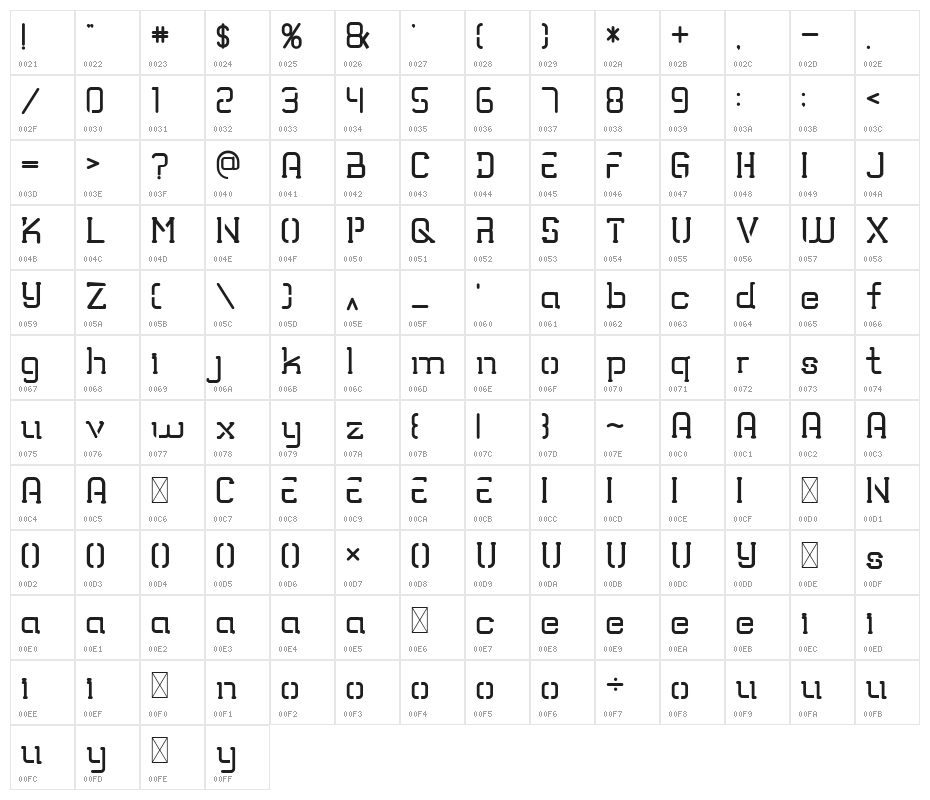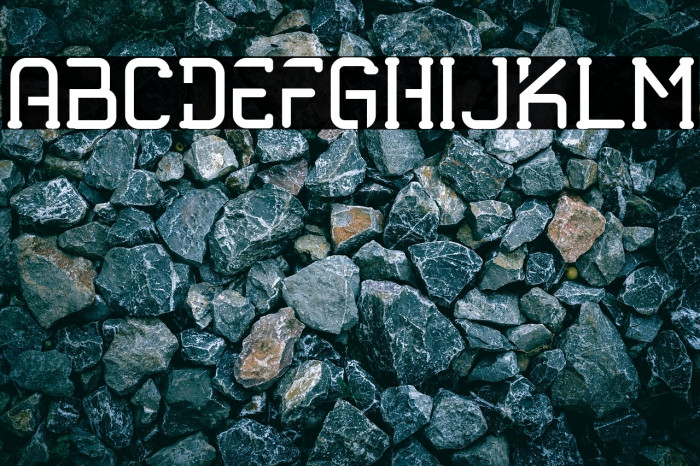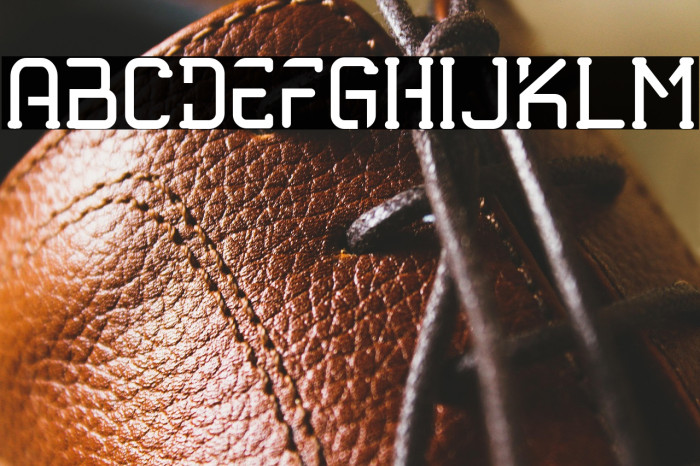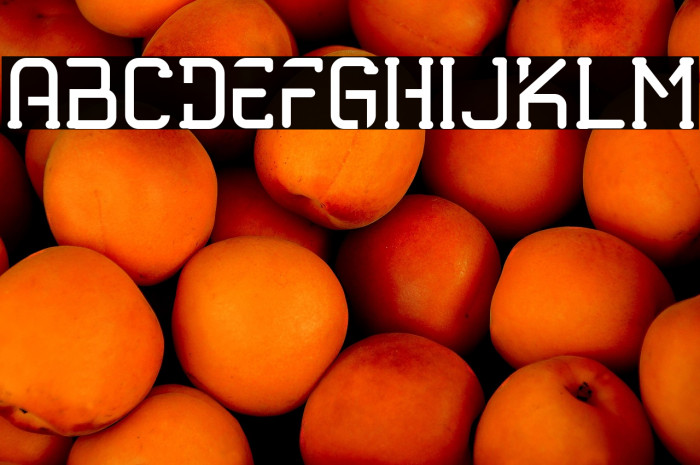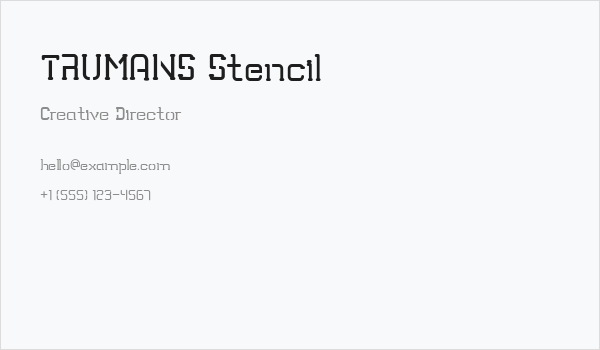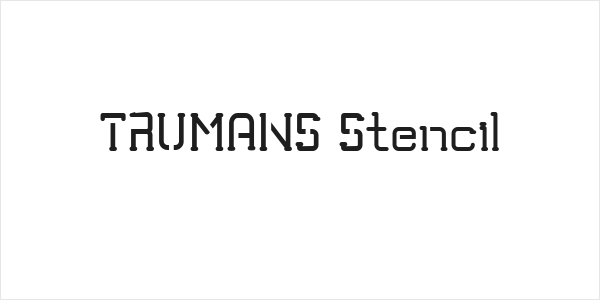
TRUMANS Stencil Font
TRUMANS Stencil Description
This font features a distinct stencil design, characterized by breaks in the strokes that create a modern, industrial feel. The uppercase and lowercase letters maintain a consistent geometric structure, with rounded edges and uniform line thickness. The numerals and special characters follow the same design principles, ensuring a cohesive look across all glyphs. The font's unique style is both functional and decorative, making it suitable for various creative applications. Its clean lines and open spaces enhance readability while adding a touch of contemporary flair.
| Use Case | Headlines, Logos, Signage |
| Proposed Projects | Ideal for branding, signage, posters, and packaging design where a modern industrial aesthetic is desired. |